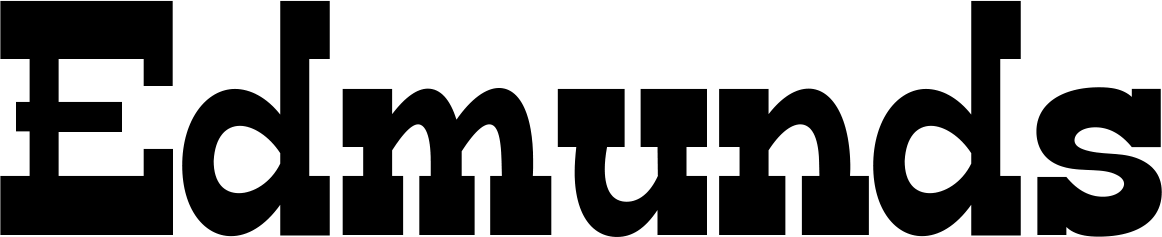
Edmunds Font
If you need a bold look for your texts, Western fonts are ideal for you. This font is called Edmunds and has two different styles. One of them has a distressed look which will give a punk vibe to your text.
You can use this Western block font for theater and movie posters, western and retro texts, country music or album titles, and antique shop signs.